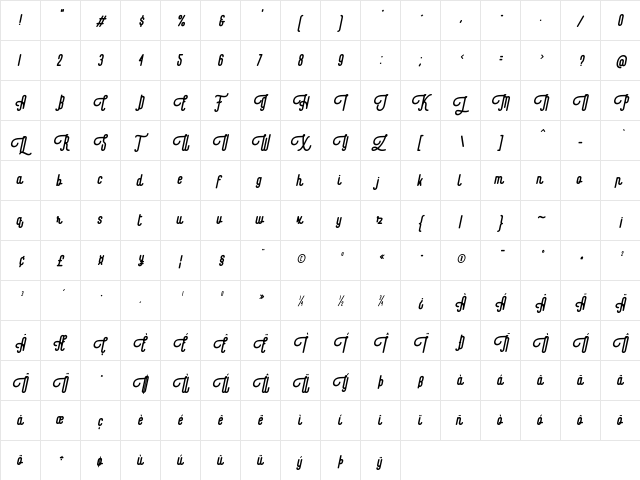
Revolage Script Oblique
Design Context for Revolage Typeface
Revolage flows with the natural rhythm of handwritten lettering, making it ideal for designs that call for warmth and personal expression.
Font Pairing: Combine Revolage with a simple geometric sans for maximum contrast — the tension between flowing curves and clean structure is a classic typographic pairing.
Pro Tip: Pair Revolage with a clean sans-serif for supporting text. The contrast between fluid script and geometric structure creates an elegant typographic hierarchy.